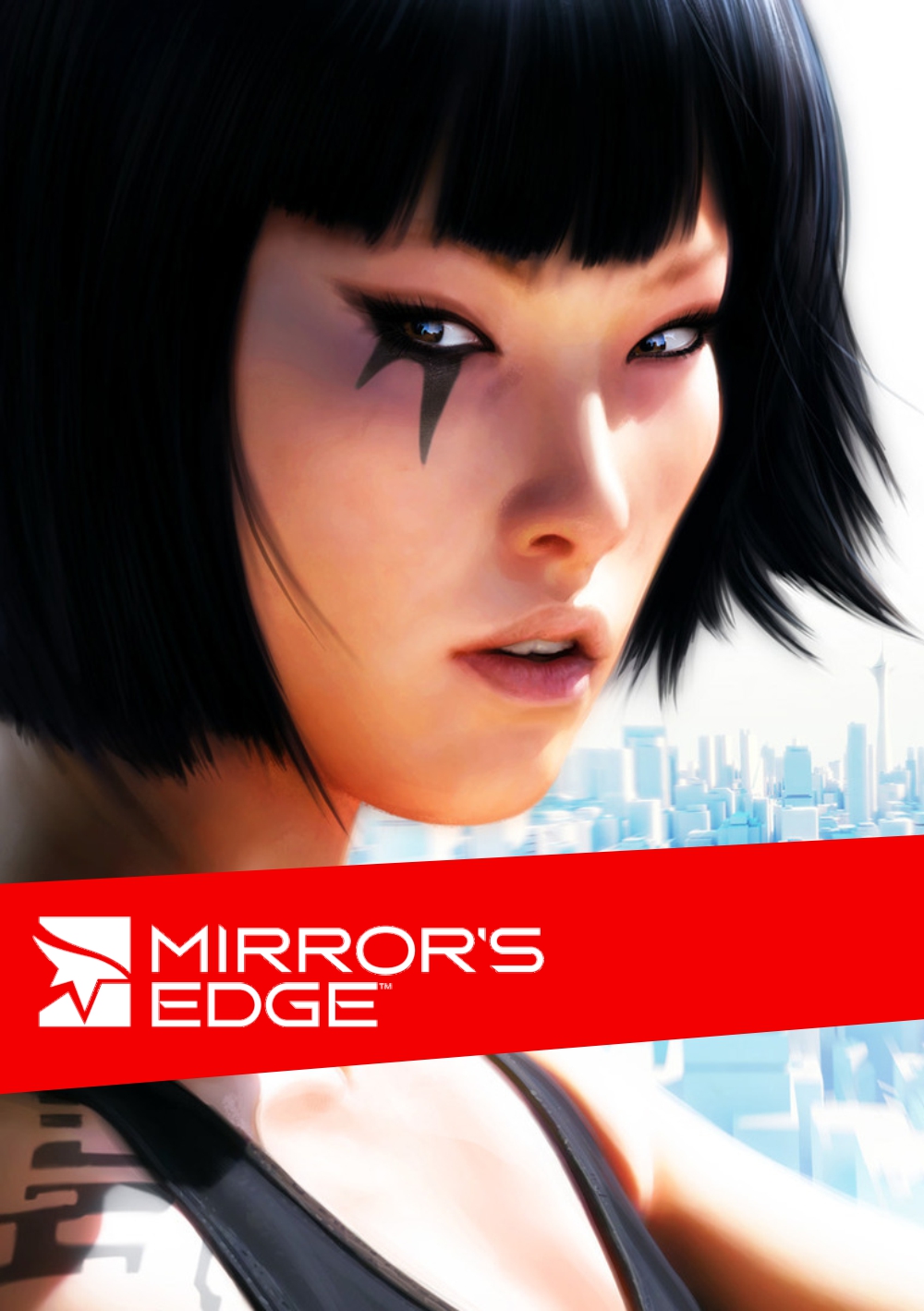
Mirror’s Edge Font
ActionMirror’s Edge is an action-adventure platform game developed by DICE and published by Electronic Arts. Faith Connors delivers messages while evading government surveillance in this game, set in the near future. The Mirror's Edge game logo is designed based on Good Times Book.
Good Times is a techno headline typeface, inspired by the lettering used on Pontiac cars from about 1989-1994. The family has 15 font styles and different weights of the font are available for purchase at Myfonts.